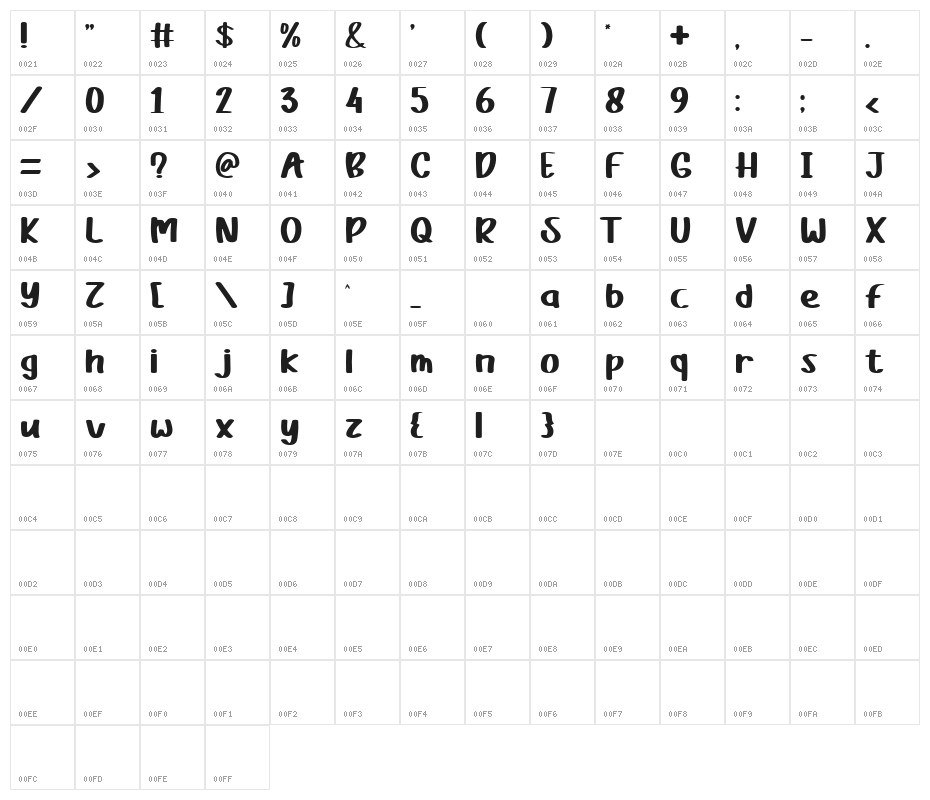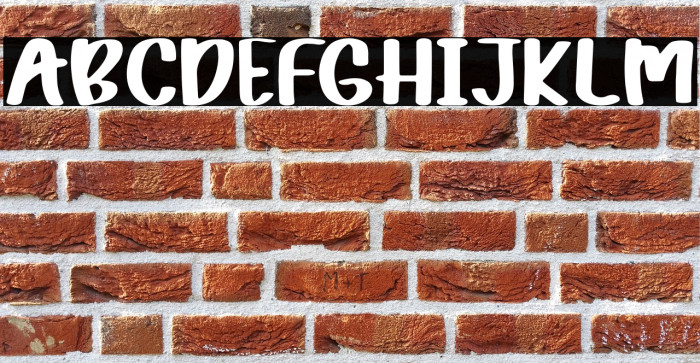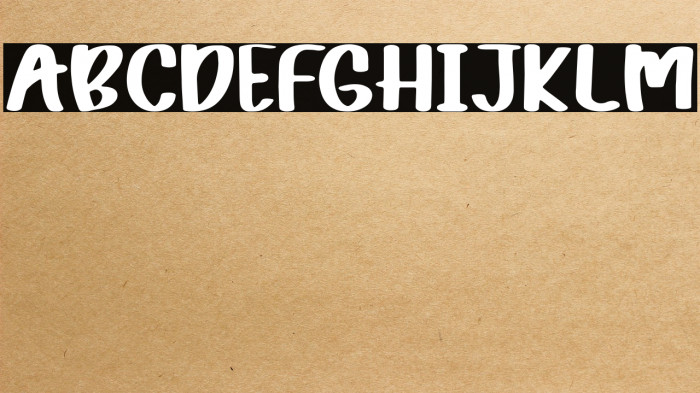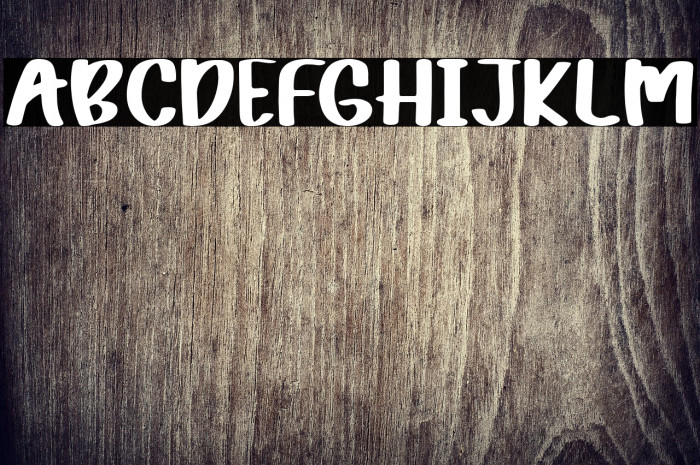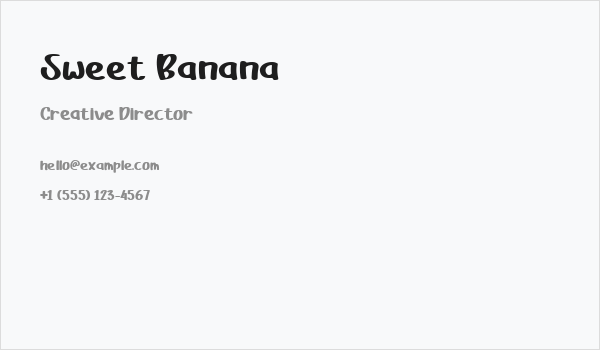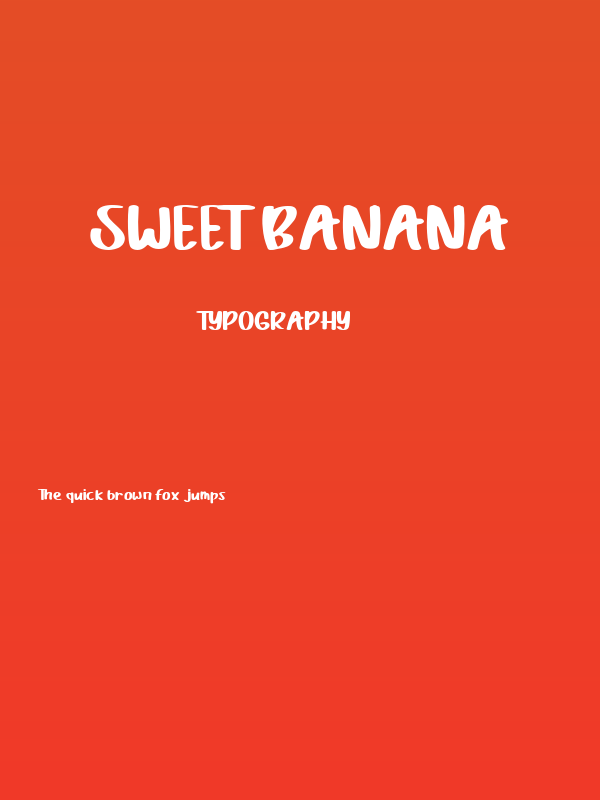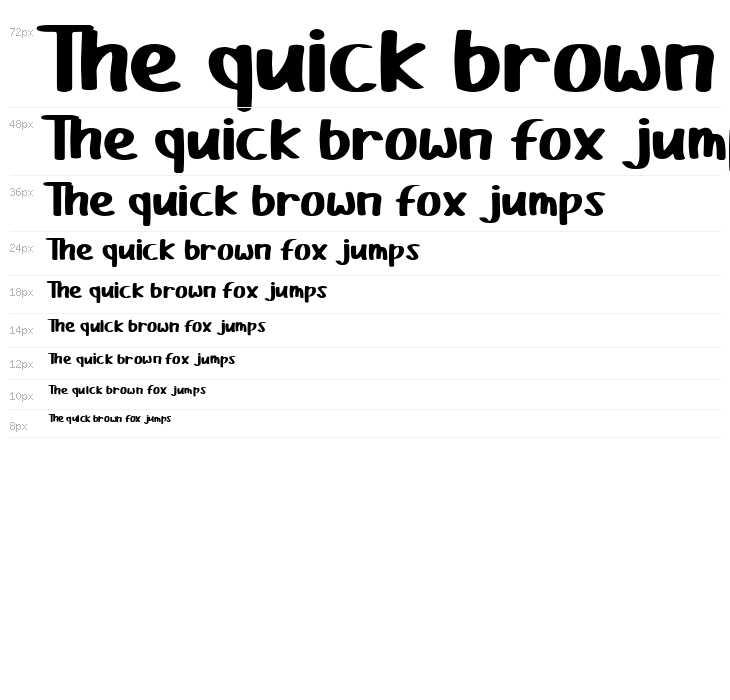
Sweet Banana Font
Sweet Banana Description
This playful and bold font features a handwritten style with a smooth, flowing appearance. The letters are rounded and slightly irregular, giving it a casual and friendly vibe. The uppercase and lowercase characters maintain a consistent style, with the lowercase letters being slightly smaller and more compact. The numbers and special characters are designed to match the overall aesthetic, ensuring a cohesive look across all text elements. The font's thick strokes and rounded edges make it highly legible, even at smaller sizes, while its unique style adds a touch of personality to any design.
| Use Case | Logos, Headlines, Informal Text |
| Proposed Projects | Ideal for children's books, playful branding, greeting cards, and informal invitations. |